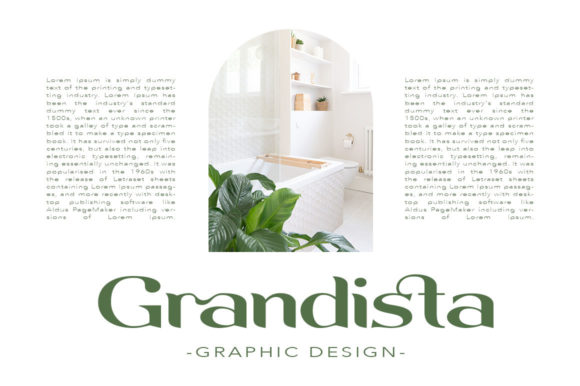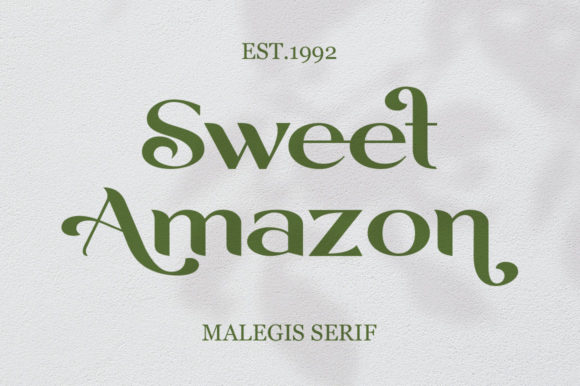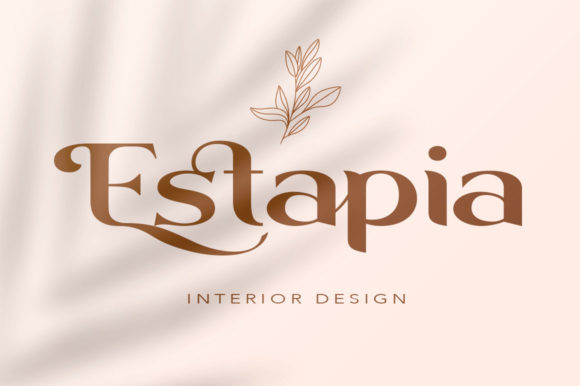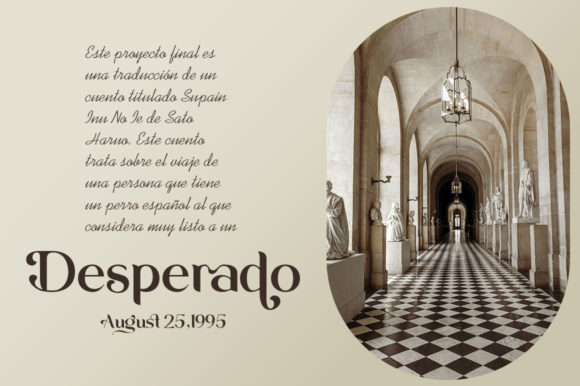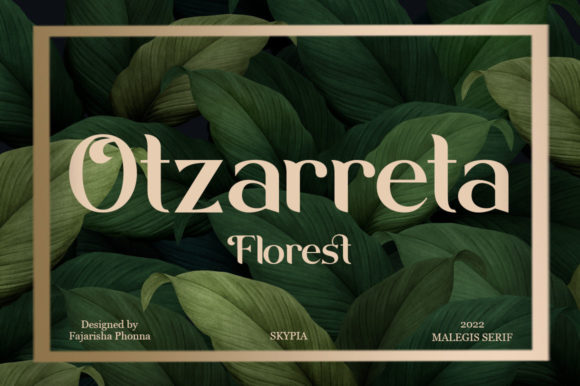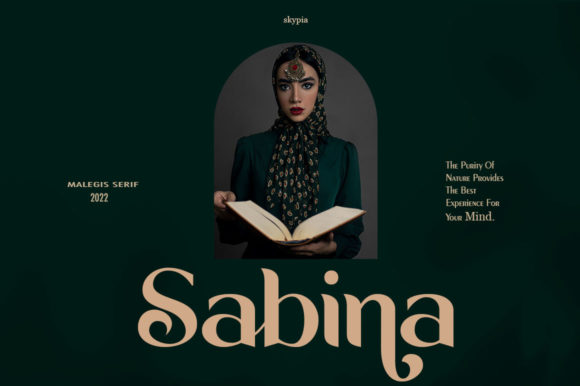
Introduction to Malegis Font
As a designer, there’s nothing quite like the thrill of discovering a new font that elevates your creative project to the next level. For me, it was the moment I stumbled upon the Malegis Font – a stylish and distinct display font that instantly caught my eye. With its high quality design and PUA encoded features, I knew I had to dive in and explore all it had to offer.
Malegis Font is more than just a pretty face, though – it’s a valuable resource for designers looking to add a touch of sophistication to their designs. Whether you’re working on a creative project with a transparent background or need a design resource that stands out from the crowd, this font is sure to deliver. And the best part? It’s available for a free download, making it a must-have for any designer looking to take their work to new heights.
Key Features of Malegis Font
- High-quality design for creative projects with a unique, elegant style.
- Transparent background, allowing for seamless integration with various design elements.
- Resolution-independent, ensuring crisp and clear text at any size or resolution.
- Perfect for use in logos, branding materials, and other creative projects where a touch of sophistication is required.
Honest Review: Malegis Font
I recently had the chance to work with the Malegis Font, and I must say, it’s been a pleasant experience. As a designer, I’m always on the lookout for high-quality fonts that can elevate my creative projects. And Malegis Font definitely delivers.
- ✨ Unique and modern design: The Malegis Font boasts a sleek and modern design that’s perfect for contemporary creative projects. It’s a great addition to any designer’s toolkit.
- ✨ Transparent background: The Malegis Font has a transparent background, making it easy to use in a variety of design scenarios.
- ⚠️ Limited font weights: While the Malegis Font is a great addition to any designer’s toolkit, it would be even better with more font weights to choose from.
- ⚠️ Not suitable for all projects: Due to its modern design, the Malegis Font may not be suitable for all creative projects, particularly those that require a more traditional or classic look.
Overall, I’m impressed with the Malegis Font. It’s a high-quality design resource that’s perfect for designers working on contemporary creative projects. While it may have some limitations, it’s definitely worth checking out, especially considering it’s available for free download.
Tips for Getting the Most Out of Malegis Font
For optimal results, pair the Malegis Font with a clear and simple design. Experiment with different font sizes and colors to create a visually appealing design. You can also use the font’s transparent background to create a sense of depth and dimensionality.
Common Use Cases for Malegis Font
The Malegis Font is ideal for a variety of creative projects, including logos, business cards, and marketing materials. Its high-quality design and transparent background make it perfect for creating visually stunning graphics and documents.